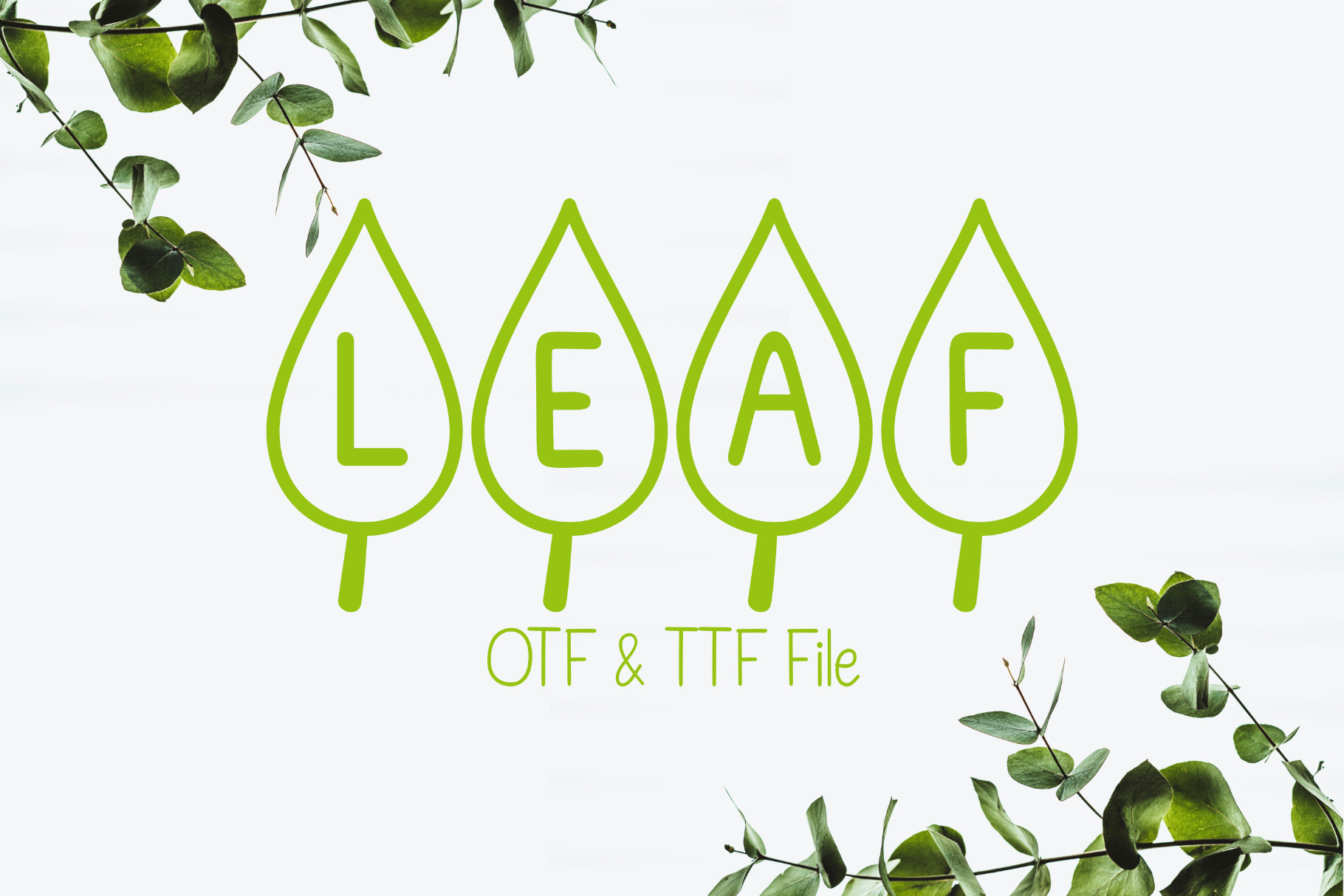
Leaf Font
Leaf is a fancy decorative font that has a letter on each leaf. This font is perfect for all your nature-themed projects, such as invitations, posters, social media graphics, and more.
- Font includes: uppercase, lowercase, numbers, and symbols